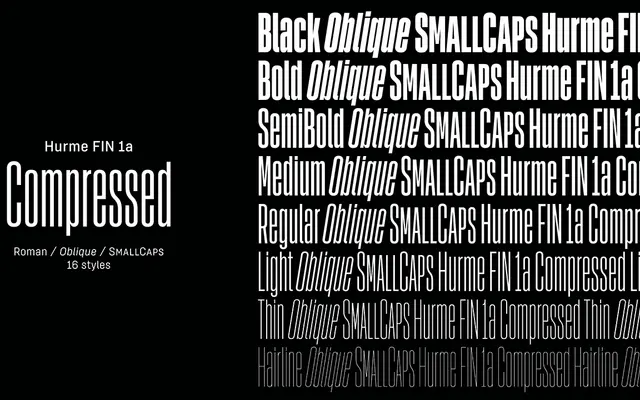
Hurme FIN 1a Compressed
The compressed width cut of Hurme FIN 1a, a monolinear grotesque with eight weights and matching obliques drawn from a nine-width, eight-weight design system totalling 144 styles.
Hurme FIN 1a Compressed is one of nine width variants within a large monolinear sans-serif family characterised by horizontal stroke terminals, short ascenders and descenders, and an x-height that increases proportionally as the width narrows. The compressed subfamily runs from Hairline to Black with a full set of optically adjusted obliques, giving sixteen styles in total. An alternative character set, FIN 1b, ships free alongside each purchase, allowing access to angular, monospace-inspired glyphs with slab serifs via OpenType features.
A simplified monolinear sans-serif with horizontal stroke terminals and no contrast, placing it firmly in the grotesque tradition, here in its compressed width variant across a large design space.